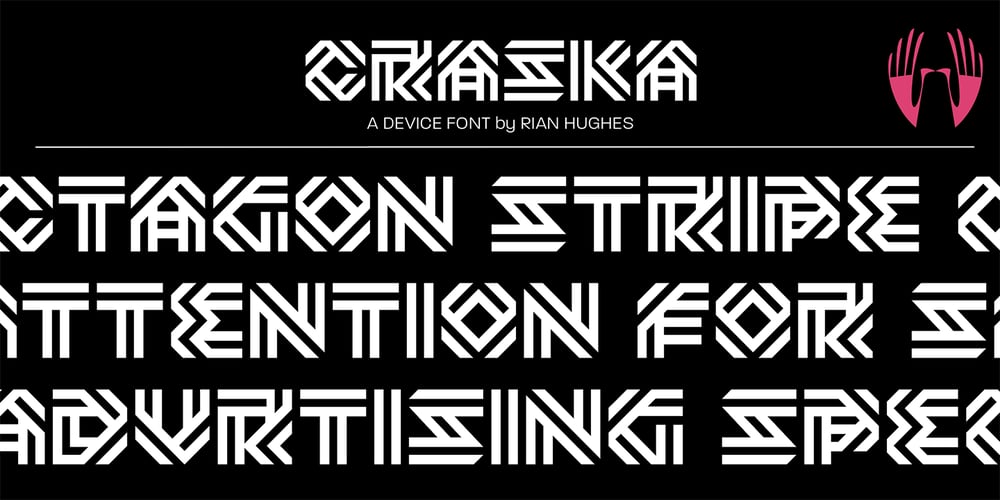
Craska
Craska font
Craska Font Family was designed by Rian Hughes and published by Device. Craska contains 1 styles and family package options. A bold and arresting geometric font built from parallel stripes. Most effective in short headings or logos at larger, display sizes.